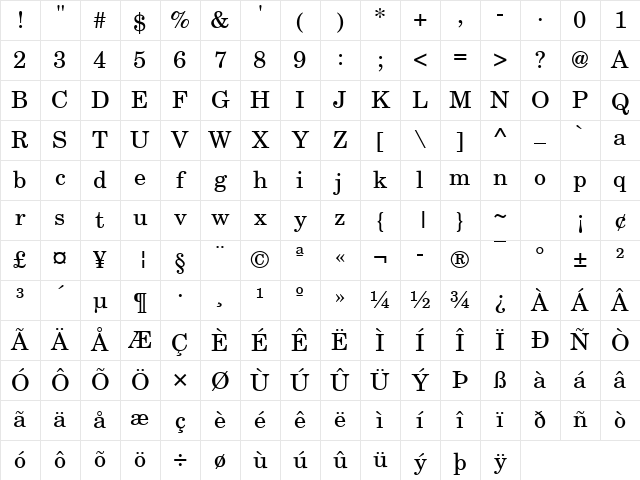
CenturySchL Regular
Design Context for CenturySchL
CenturySchL is a composed and adaptable typeface that performs quietly and consistently across a wide range of design contexts.